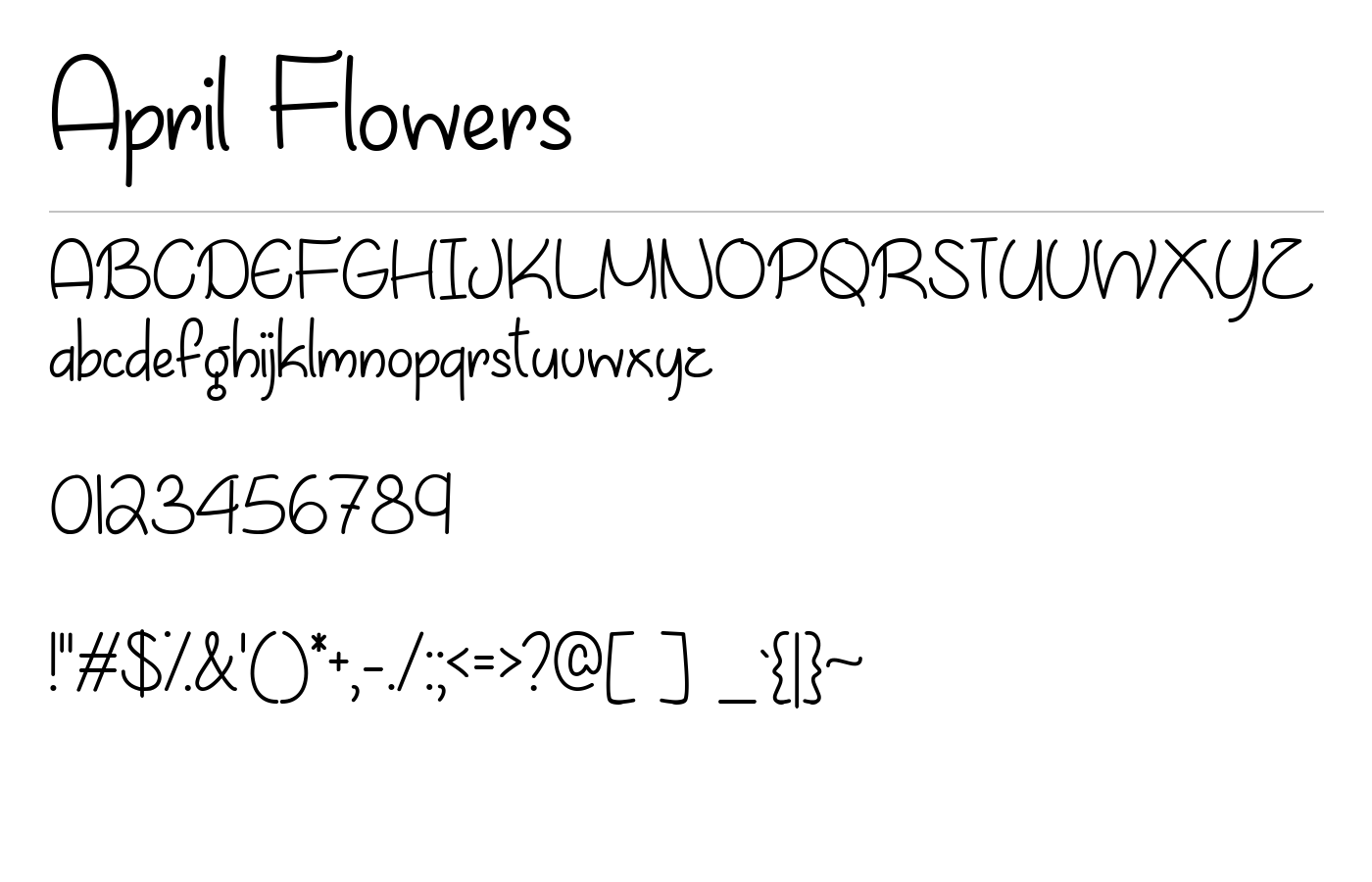
April Flowers is a playful and casual handwritten font with a light weight and tall, narrow letterforms that create an airy and friendly feel. Its smooth, rounded strokes and simple, single-story characters make it perfect for informal designs such as greeting cards, children’s books, or creative branding that aims to convey warmth and approachability. This font works well in contexts where a cheerful and personal touch is needed, adding charm without sacrificing readability.
April Flowers Font
About April Flowers Font